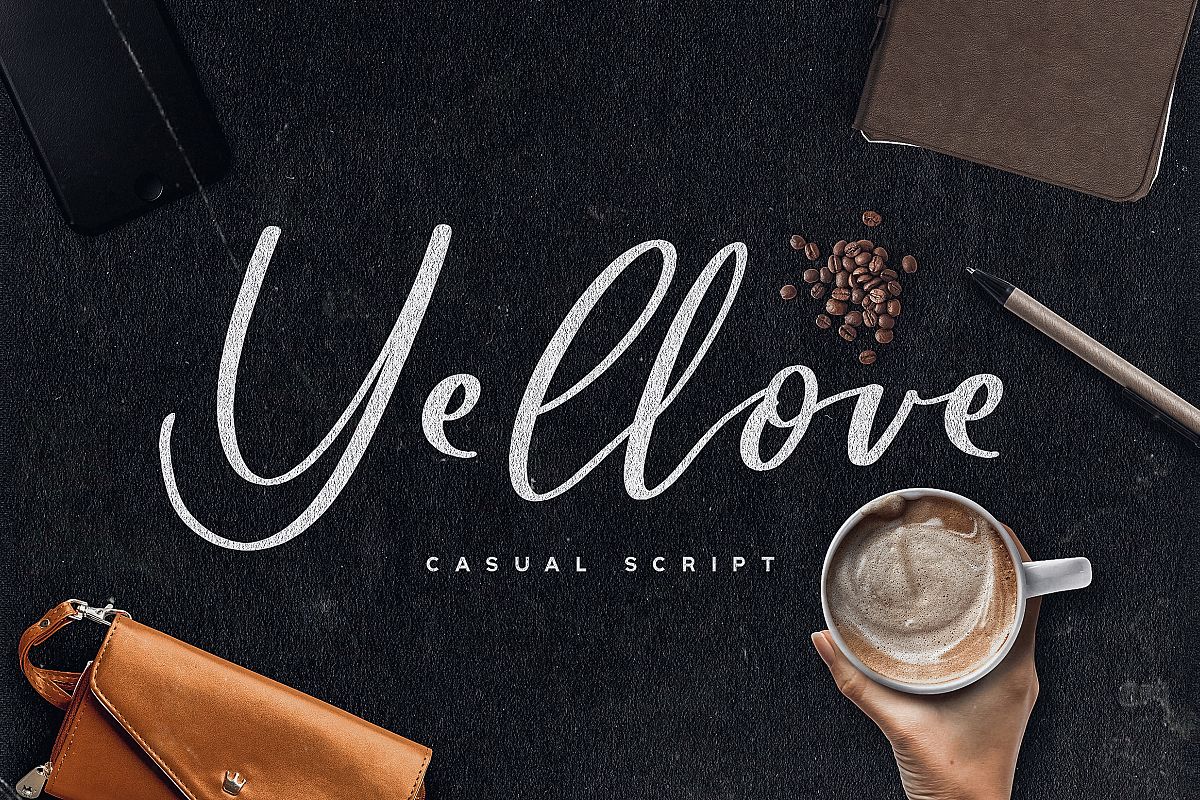
Yellove Duo - Fun Casual Handwriting
A beautiful hand writing modern calligraphy fonts with a huge versatileness for any casual branding needs. Ladies and Gentleman, please welcome, Yellove Duo. A duo fonts that you'll love to love.
It contains 2 styles, Yellove and Yellove Too. The Yellove Too is an alternative shape from the Yellove. So your design will looks like traditionally handwritten because the handwriting letters are never be the same :)